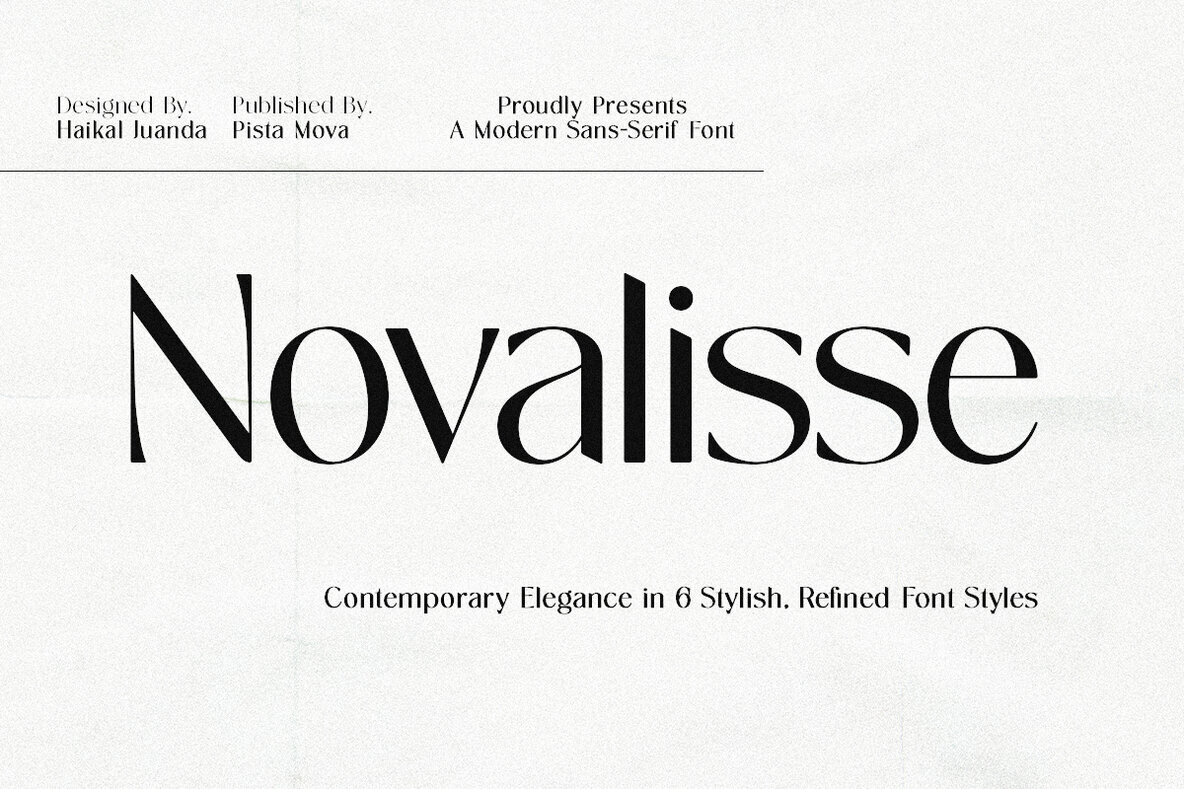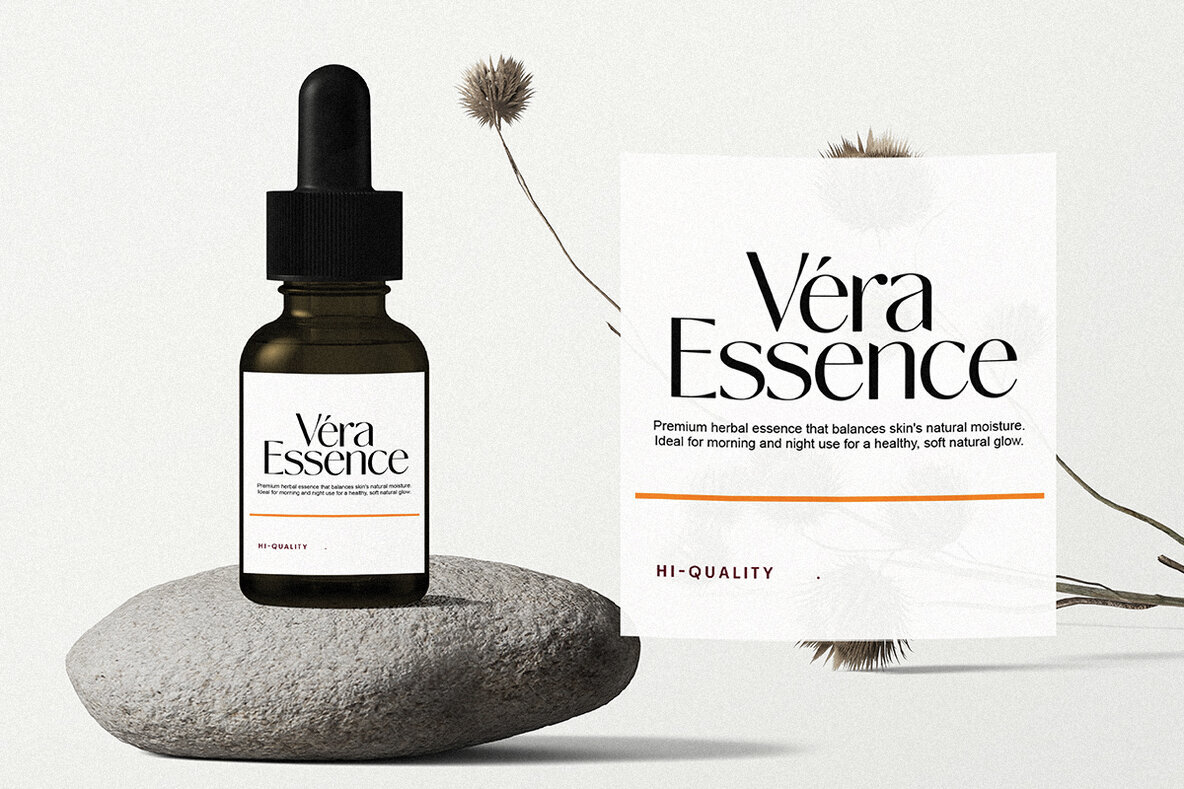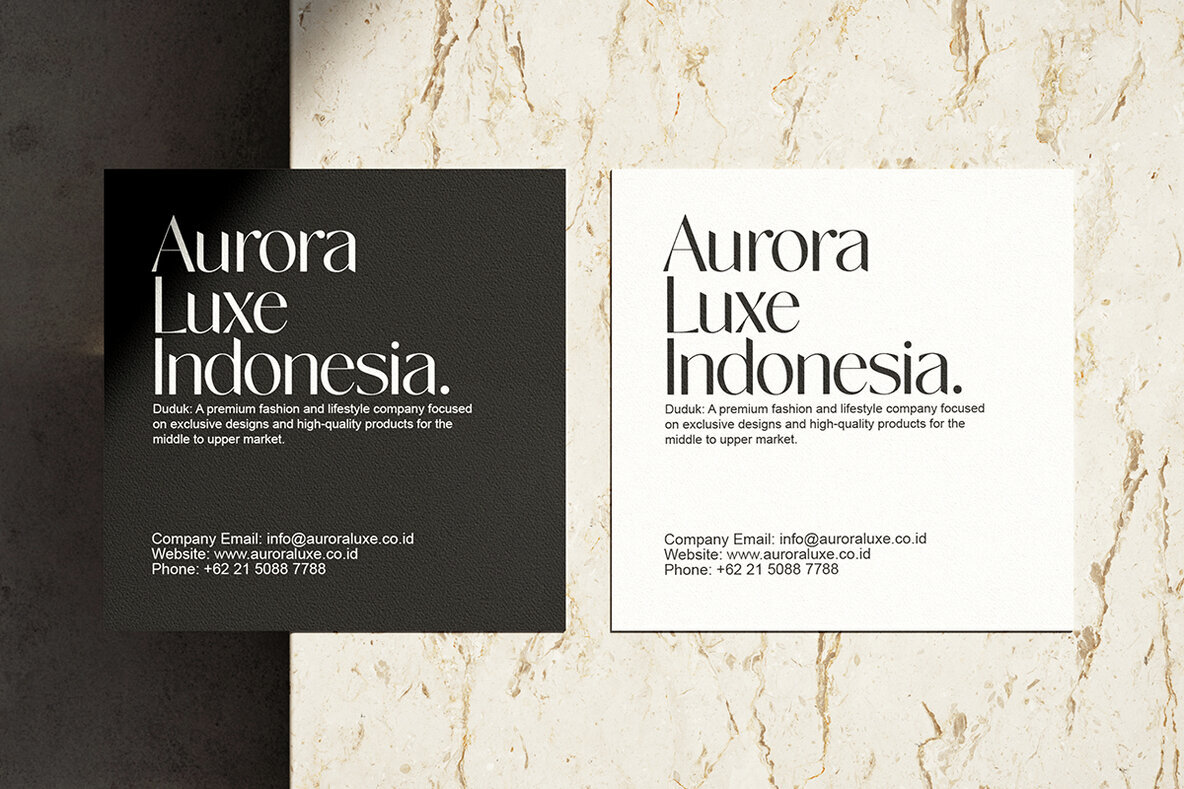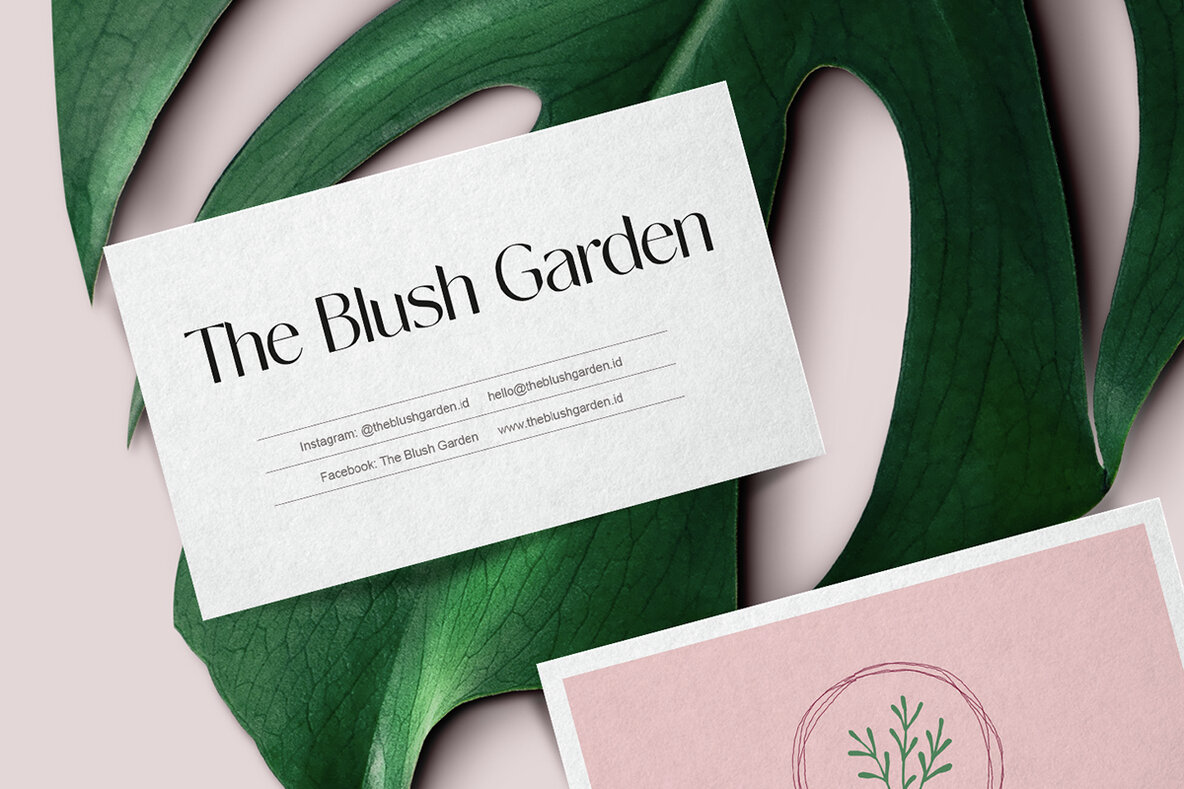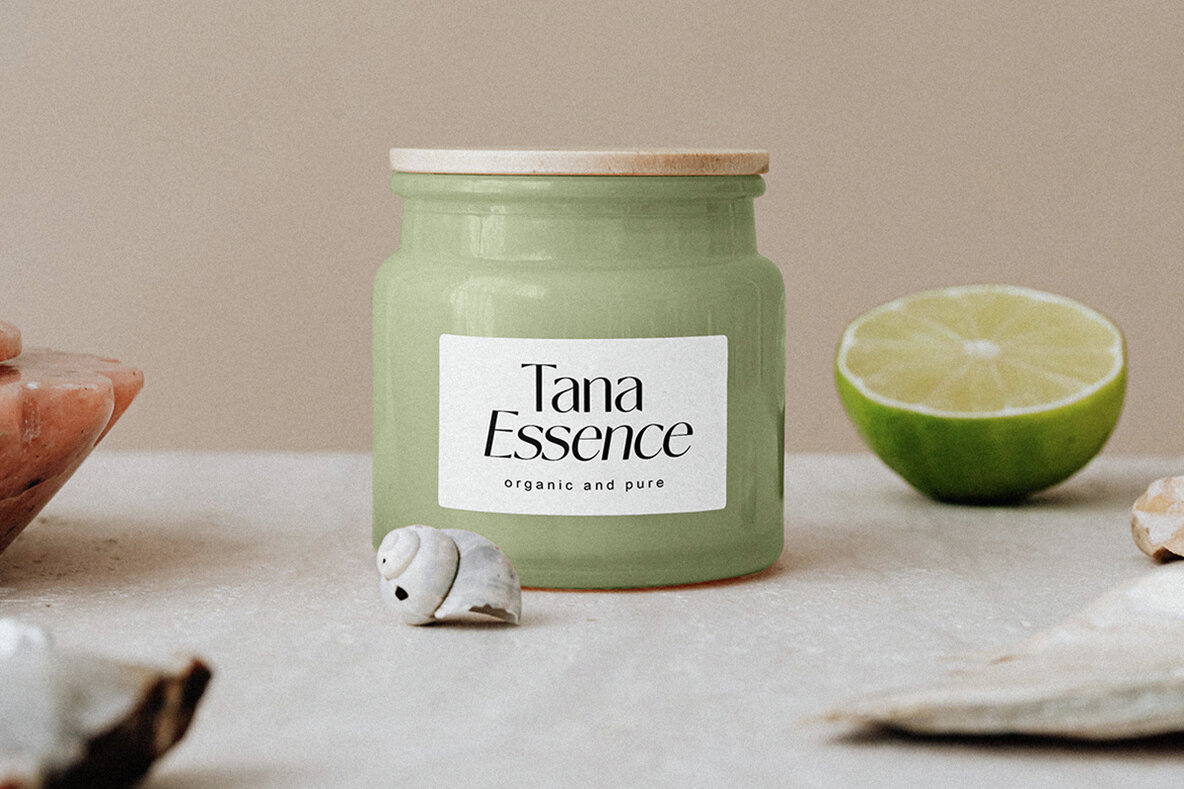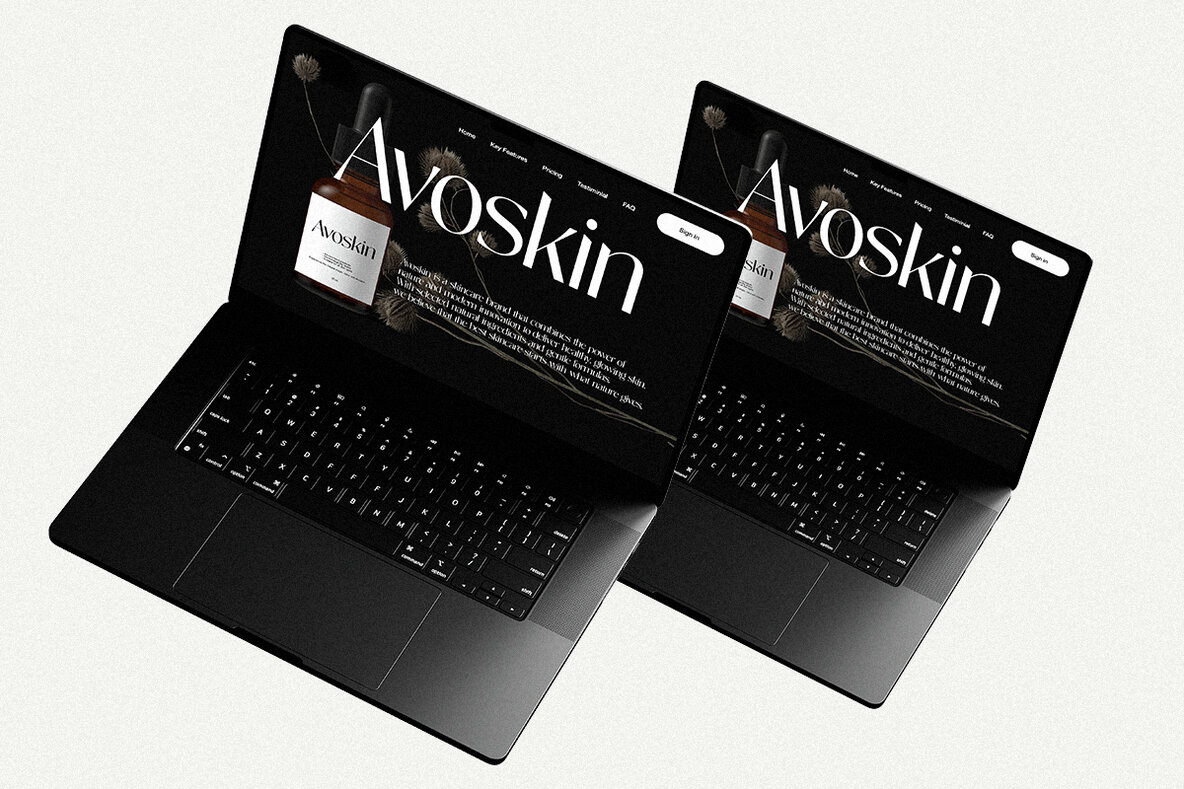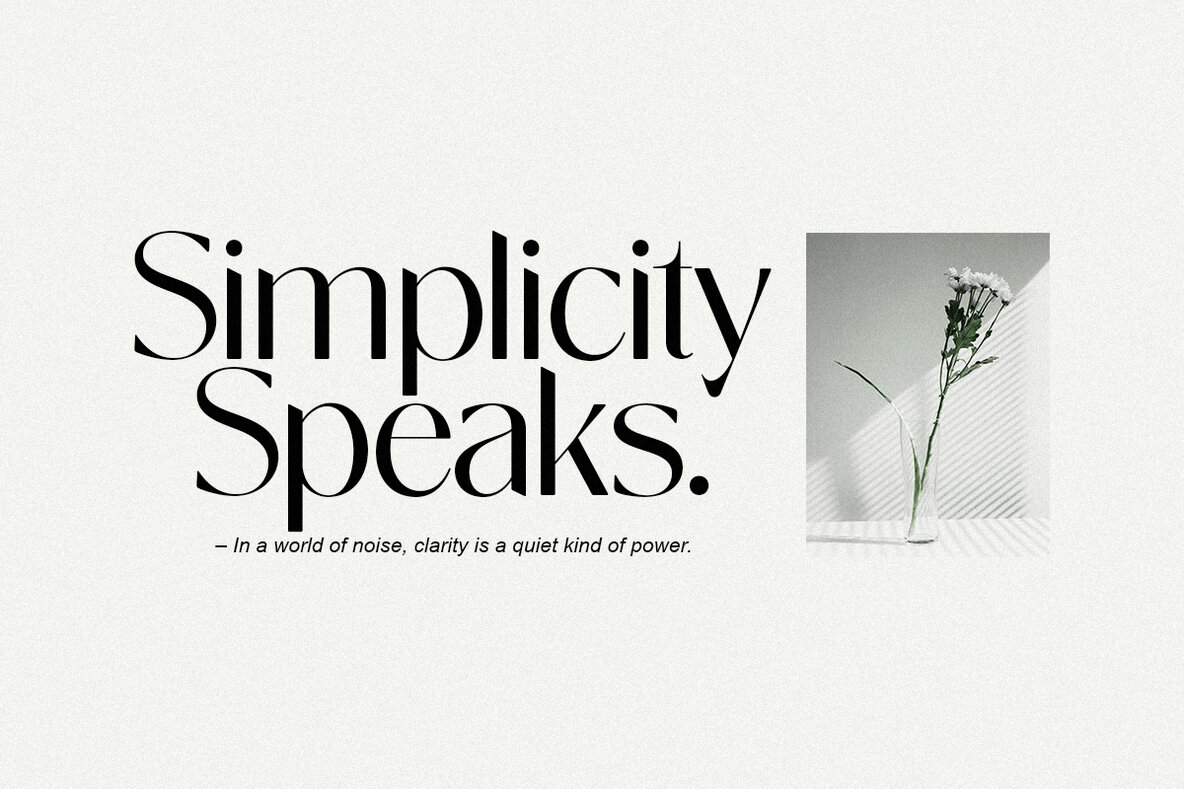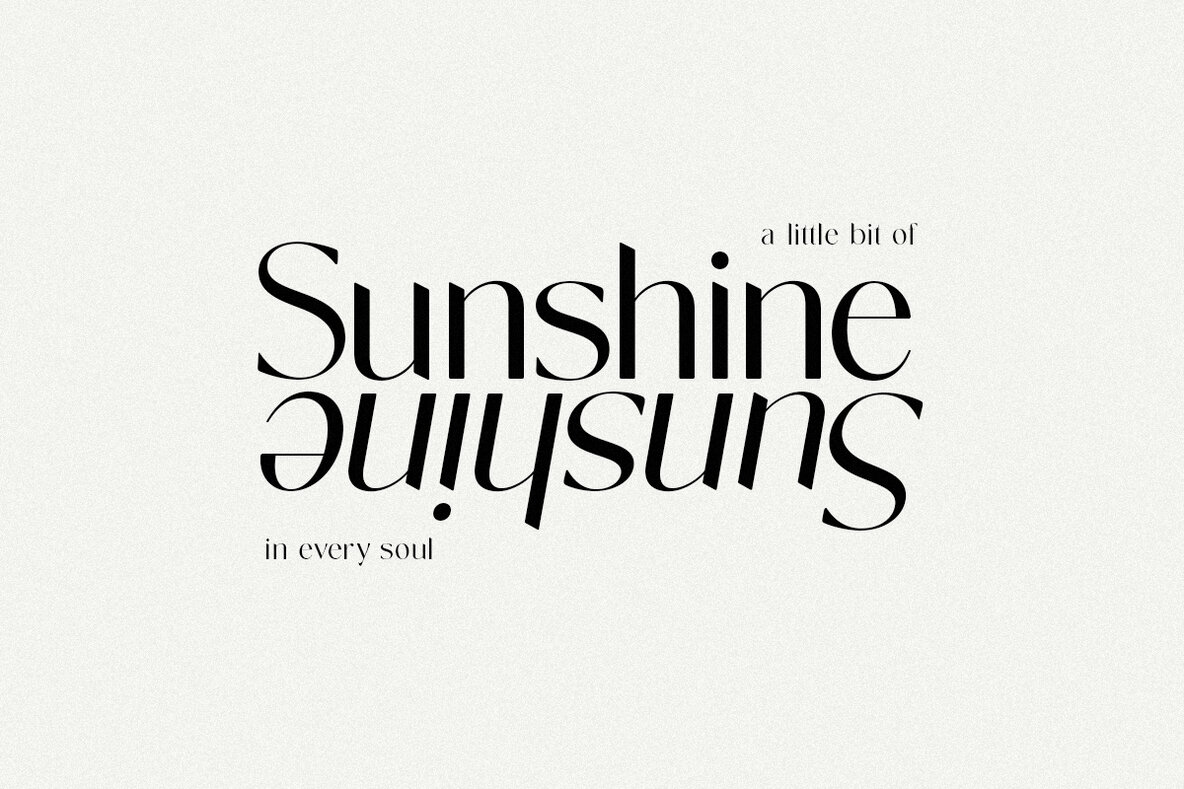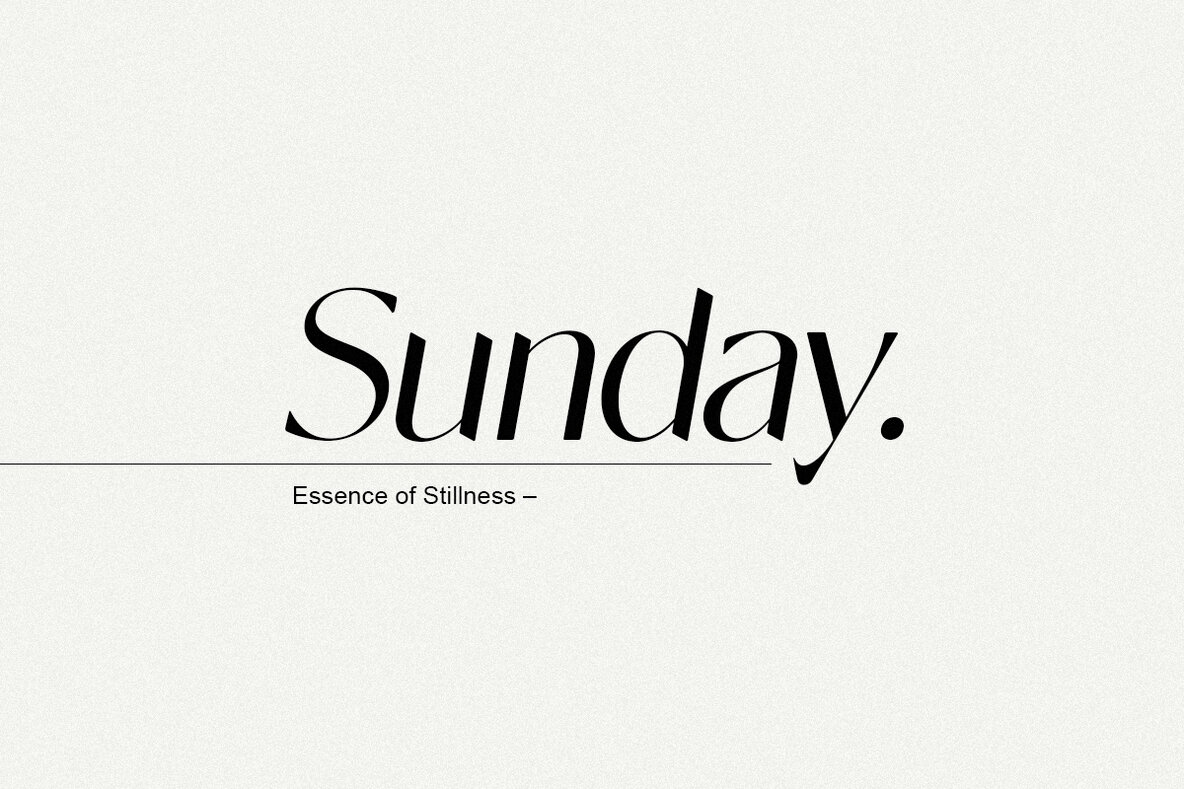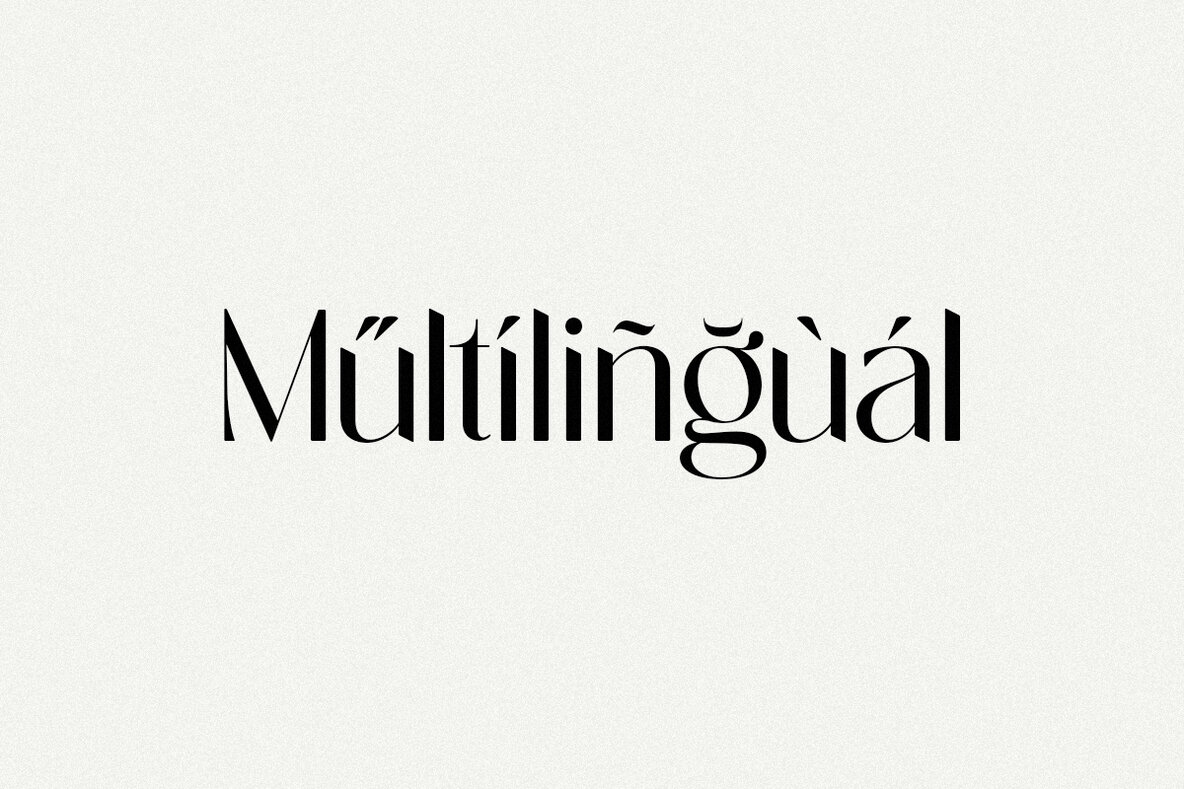
Novalisse Font
Discover Novalisse, a san serif typeface that embodies timeless elegance, seamlessly blending classic charm with modern sensibility. Its high-contrast strokes and graceful curves create a captivating visual experience, perfect for enhancing any design project. Whether crafting a sophisticated editorial layout, a striking brand identity, or an engaging website, Novalisse offers versatility and refined beauty to make your work truly stand out. Each character is meticulously designed to exude strength and refinement, from its sculpted strokes to balanced proportions, showcasing the enduring power of classic typography. True italics introduce dynamic movement and visual interest, ensuring designs are both captivating and easy to read. Experience the elegance and flexibility of Novalisse today. Download now and explore a world of typographic possibilities.Novalisse: The Modern San Serif Typeface